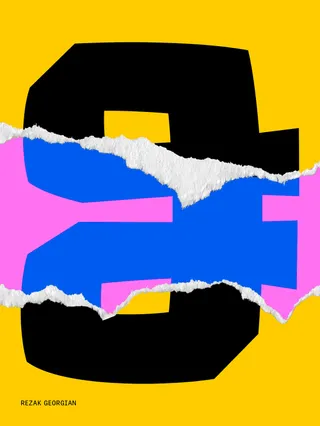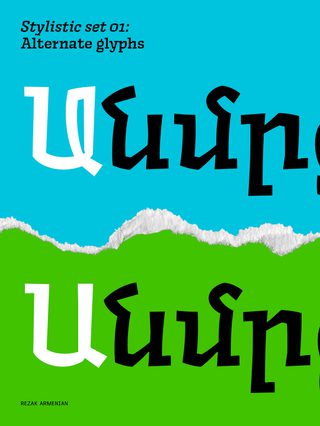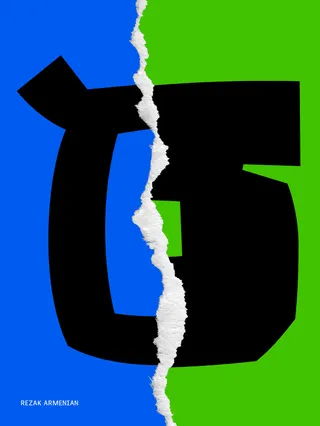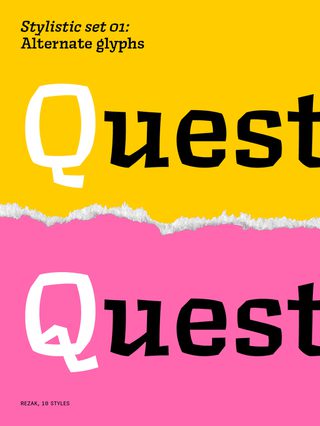
Introducing Rezak Armenian and Rezak Georgian
Anya Danilova’s angular, jaunty type family adds two scripts to give designers in the Caucasus a beautiful new set of options
Inspired by visits to the Caucasus and the strong book culture in both Armenia and Georgia, Anya Danilova decided to add Armenian and Georgian to her tactile and versatile Rezak family. Rezak Armenian and Rezak Georgian join their Latin and Cyrillic counterparts to provide graphic designers with a fantastic set of options for multiscript typography.
Rezak was released in 2022 and it included Latin and Cyrillic scripts.
Inspired by visits to the Caucasus and the strong book culture in both Armenia and Georgia, Anya Danilova decided to add Armenian and Georgian to her tactile and versatile Rezak family. Rezak Armenian and Rezak Georgian join their Latin and Cyrillic counterparts to provide graphic designers with a fantastic set of options for multiscript typography.
And it’s Rezak’s design approach that is deceptively simple – the high-impact Black and Incised weights have only a few cuts, but as the weights get lighter, the number of cuts grows. Rezak Armenian and Rezak Georgian carry this logic into the two South Caucasus scripts, always approaching them with equal doses of respect and inventiveness.
Rezak’s Black and Incised display styles are perfect in situations of impact: websites, headlines and large text, gaming, call-outs, posters, and packaging. Try these two in logotypes, complex print layering, branding, and words-as-pattern for greater experimentation. The text styles (Regular, Medium, Bold, Extrabold) are bold, energetic, well informed, and will work well in children’s books, call-outs, movie titles, and subheads for myriad subjects such as architecture, coffee, nature, cooking, and other rough-and-tumble purposes.
Anya Danilova is a type designer based in the Netherlands. She studied at Moscow State University of Printing Arts, attending Alexander Tarbeev’s type design workshop. In 2019, she obtained her master’s degree from Type and Media at the Royal Academy of Art in The Hague. In 2020, she won a Gerard Unger Scholarship with her MA graduation typeface Rezak.
Her work mainly focuses on Cyrillic and Latin scripts, and her interest extends to multiscript typography. In addition to creating Cyrillic extensions, various mastering work and creating new typefaces, she writes articles about typography, researches Georgian and Armenian scripts, draws letters and makes posters for fun.